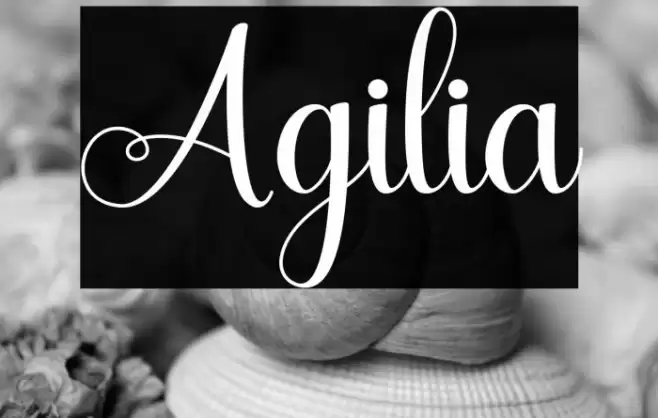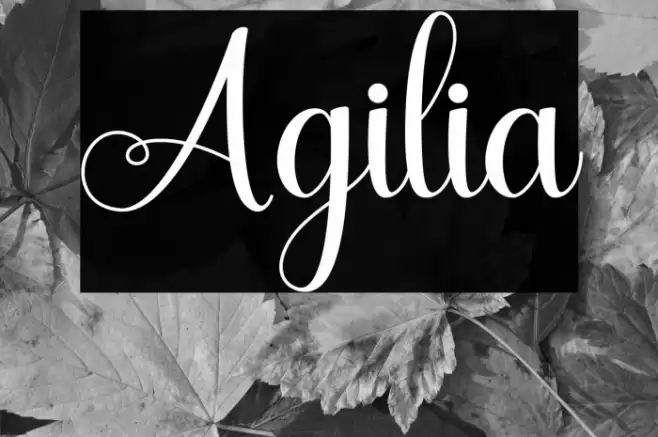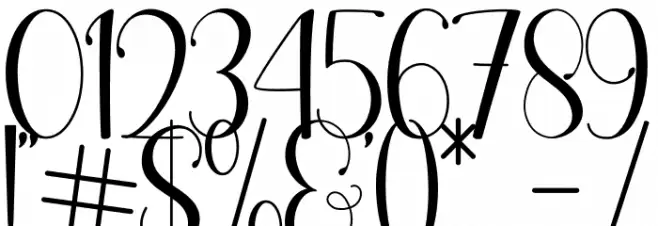
Agilia Font
Agilia Description
This elegant script font features flowing, interconnected letterforms with a distinct calligraphic style. The uppercase letters are characterized by their ornate loops and swashes, adding a touch of sophistication and flair. The lowercase letters maintain a consistent rhythm, with smooth curves and a graceful appearance. The numerals are stylishly crafted, complementing the overall aesthetic with their unique, artistic design. Special characters are thoughtfully integrated, ensuring versatility in various design contexts. This font exudes a sense of elegance and creativity, making it ideal for projects that require a personal, artistic touch.
An elegant script font with flowing, interconnected letterforms and ornate swashes from Uncategorized fonts.
- Proposed Projects: Ideal for wedding invitations, elegant branding, artistic posters, and personalized stationery.
- Overall Style: Elegant, Artistic
- Use Case: Logos, Invitations, Decorative text